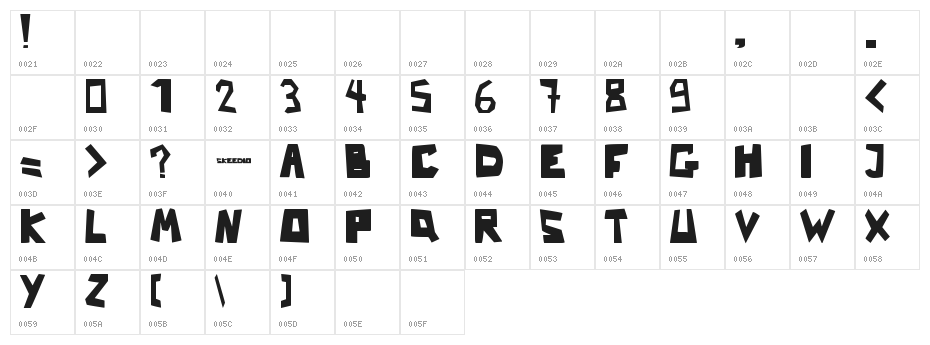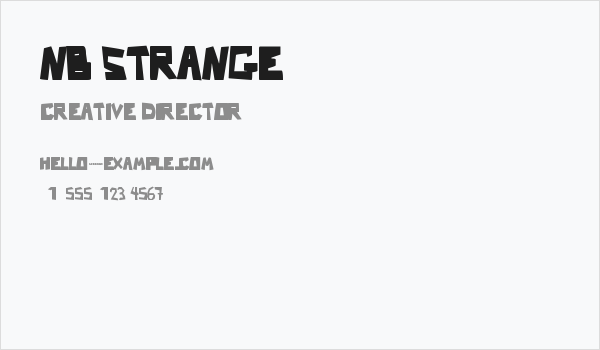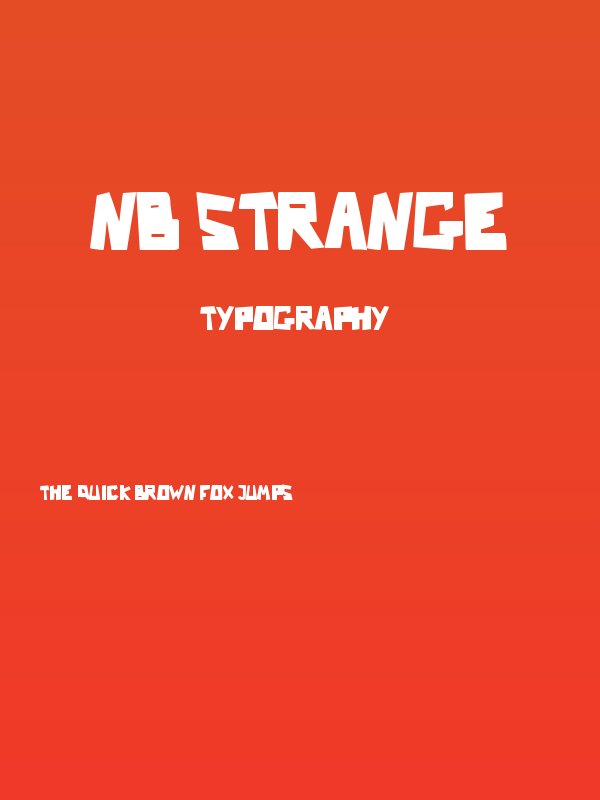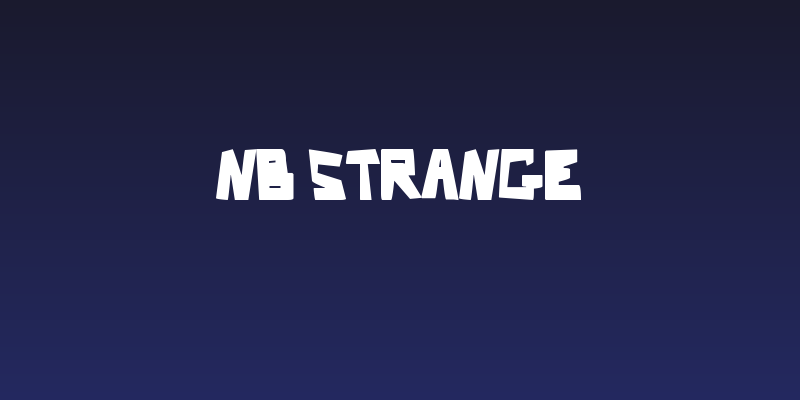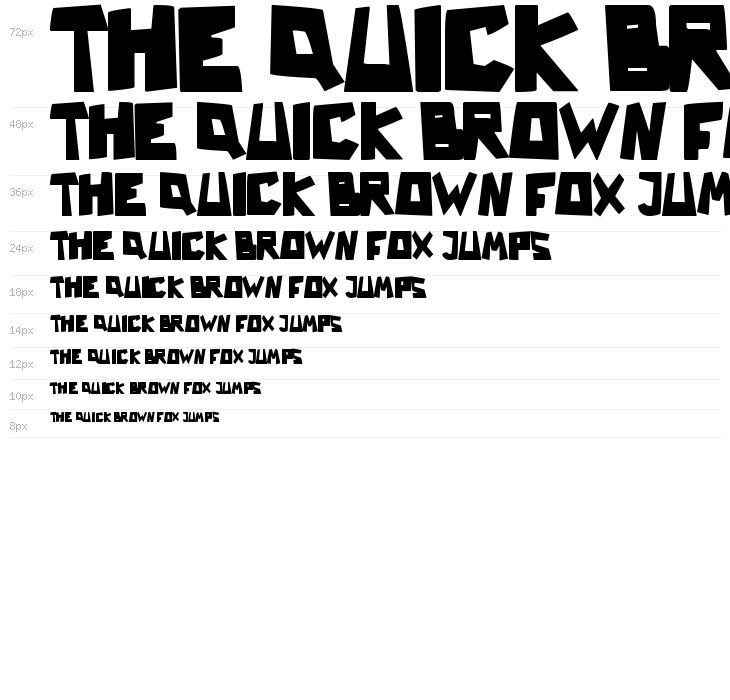
Nb Strange Font
Nb Strange Description
This font features a bold and dynamic style with a distinctly irregular and angular design. Each character is crafted with sharp edges and varying stroke widths, creating a sense of movement and energy. The uppercase and lowercase letters maintain a consistent height, while the numbers and special characters follow the same bold and edgy aesthetic. The font's unique appearance makes it stand out, offering a modern and unconventional look that is both eye-catching and memorable. Its playful yet assertive style is ideal for projects that require a strong visual impact.
| Proposed Projects | Ideal for posters, album covers, video game graphics, and branding that requires a bold statement. |